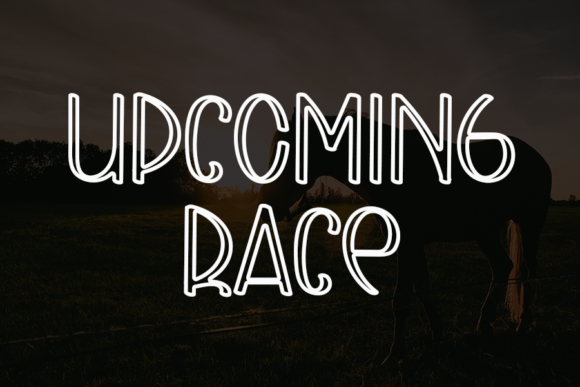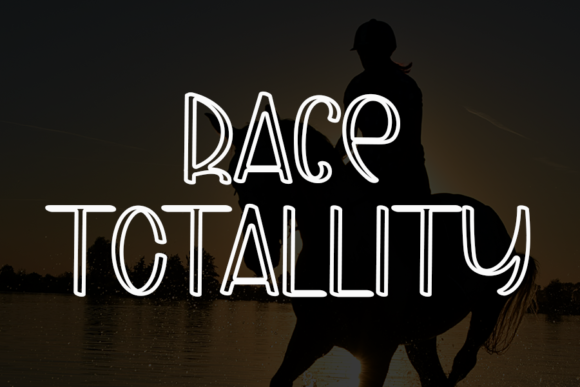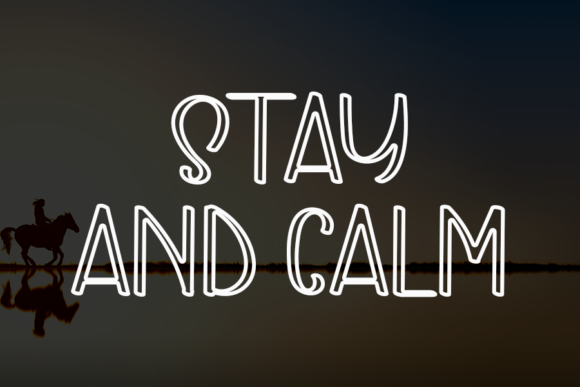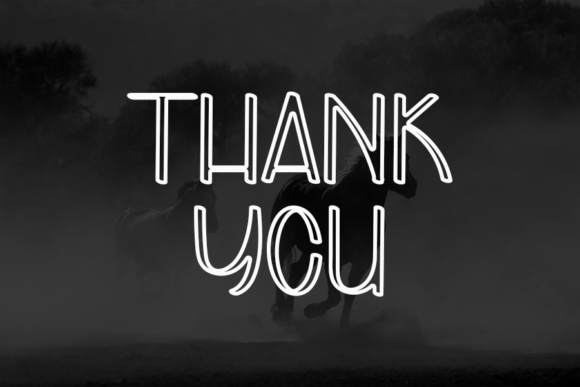
Introduction to Flaying Horse Font
Flaying Horse is a neat lettered and interesting display font.
It will add an incredibly unique touch to your designs Add this beautiful display font to each of your creative ideas and notice how it makes them stand out.
Key Features of Flaying Horse Font